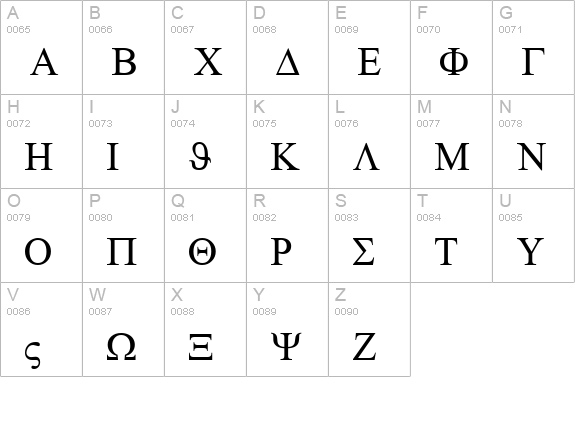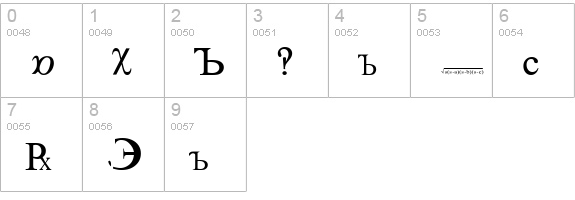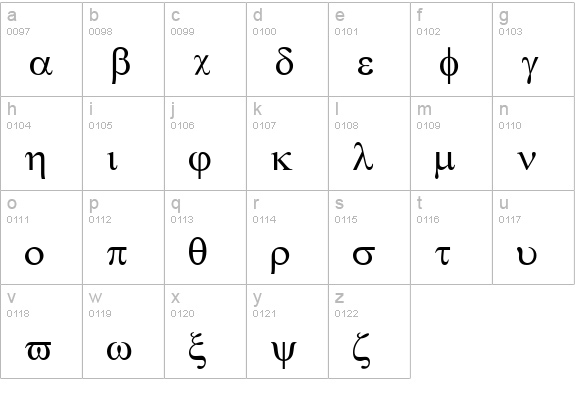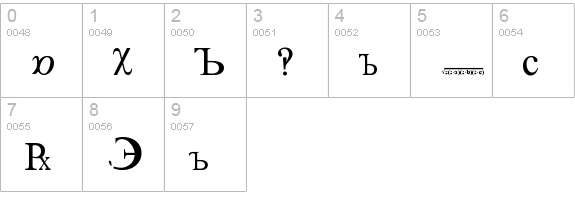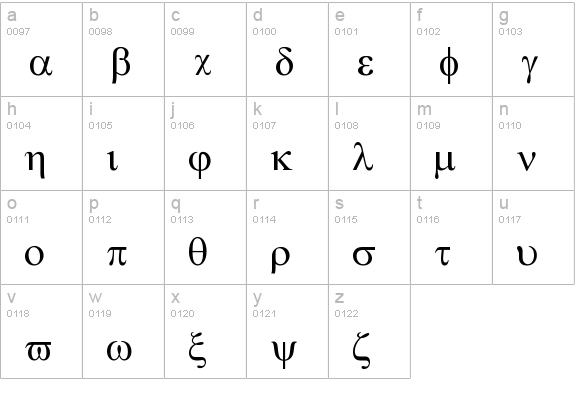
WP Symbol Font Details
WP Symbol font is a versatile and dynamic typeface that is perfect for adding a touch of creativity and elegance to any project. With its unique and eye-catching symbols, this font is designed to make a statement and grab attention. Whether you're designing a logo, creating a poster, or crafting a social media post, WP Symbol font is sure to make your work stand out from the crowd. One of the best things about WP Symbol font is that it is completely free to download. That's right, you can enhance your designs without spending a dime. Thanks to FontsMarket.com, this amazing font is readily available for you to download and use in your projects. FontsMarket.com is a trusted source for high-quality fonts, and they make it easy for you to access WP Symbol font and many other fantastic typefaces. Not only is WP Symbol font free, but it also offers a wide range of symbols to choose from. From arrows and stars to hearts and musical notes, this font has everything you need to add that extra touch of flair to your designs. The symbols are beautifully crafted and meticulously designed, ensuring that they look great at any size or resolution. Another great feature of WP Symbol font is its versatility. It can be used in a variety of design projects, from print materials like brochures and flyers to digital platforms such as websites and social media graphics. The clean and crisp lines of this font make it easy to read and legible, ensuring that your message gets across effectively. Whether you're a professional designer or a hobbyist, WP Symbol font is a must-have in your font collection. Its stylish and unique symbols, combined with its free availability on FontsMarket.com, make it a valuable asset for any creative endeavor. Download WP Symbol font today and let your imagination run wild with endless possibilities for your designs.